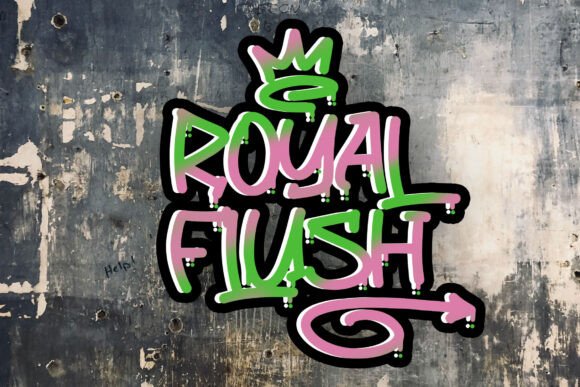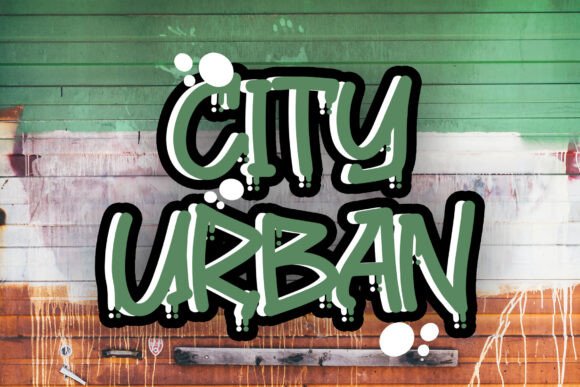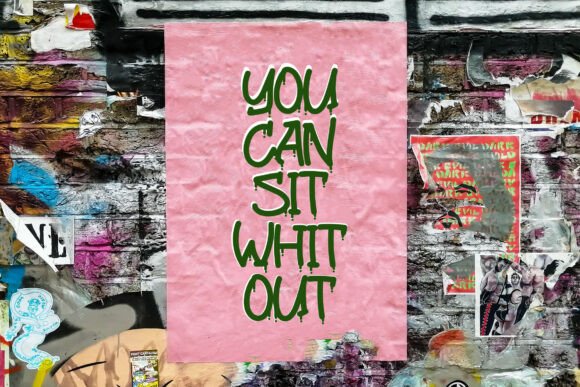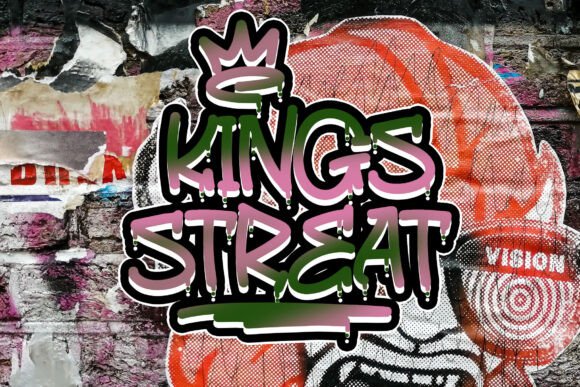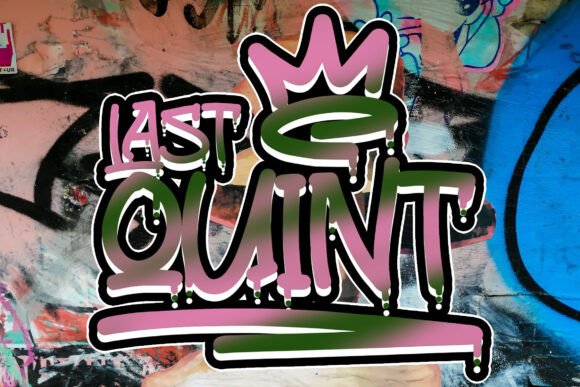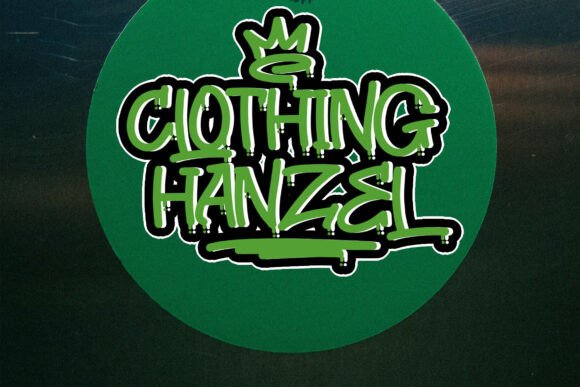
Unleash Your Creativity with EMOREN: The Ultimate Graffiti Font
I’ll never forget the time I was working on a project for a client who wanted a bold, edgy vibe for their streetwear brand. I spent hours scouring the internet for the perfect font, but nothing seemed quite right. That was until I stumbled upon EMOREN, a graffiti font with a dripping handbrush style that completely transformed my design. In this article, I’ll share my experience with EMOREN, its features, and how to make the most of this incredible font.
What Makes EMOREN Special?
EMOREN is more than just a font – it’s a statement piece. With its dynamic character shapes and bold, dripping handbrush style, it’s perfect for adding a unique and edgy vibe to your designs. Whether you’re working on street art-inspired projects, posters, apparel, or anything in between, EMOREN brings a raw, eye-catching look that’s sure to turn heads.
Honest Review: The Good and the Quirks
Here’s what I love about EMOREN:
- ✨ Unique and edgy style: EMOREN’s dripping handbrush style is unlike anything you’ve ever seen before.
- ✅ Dynamic character shapes: Each character has a distinct, hand-crafted feel that adds to the font’s overall personality.
- 💥 Perfect for street art-inspired projects: EMOREN is ideal for designs that require a bold, eye-catching look.
And here are a few quirks to keep in mind:
- 🤔 Limited use in formal designs: EMOREN’s bold style may not be suitable for formal or professional designs.
- ⚠️ Requires careful kerning: Some characters may require manual kerning to ensure optimal spacing.
Tips for OpenType Features and Glyphs
EMOREN comes with a range of OpenType features and glyphs that can enhance your designs. Here are a few tips:
- Use Stylistic Alternates to create unique variations of each character.
- Experiment with Swashes to add flair to your text.
- Access Glyphs to create custom ligatures and ornaments.
The Designer Inspiration Behind EMOREN
EMOREN was inspired by the vibrant street art scene of the 1980s. Its creator, a young designer with a passion for graffiti, wanted to capture the raw energy and emotion of street art in a font. The result is EMOREN, a font that’s equal parts bold, edgy, and beautiful.
Q: What type of projects is EMOREN best suited for?
A: EMOREN is perfect for street art-inspired projects, posters, apparel, and any design that requires a bold, eye-catching look.
Q: Is EMOREN available in different weights or styles?
A: Currently, EMOREN is available in a single weight. However, the creator may release additional weights or styles in the future.